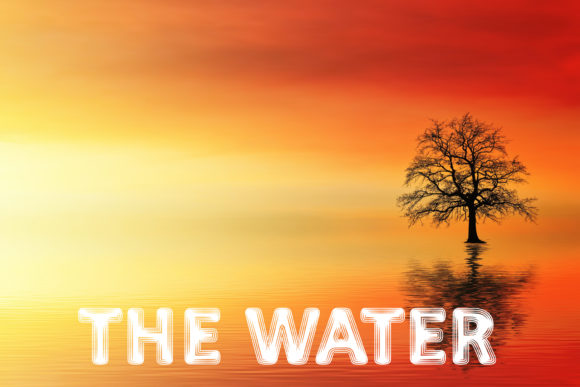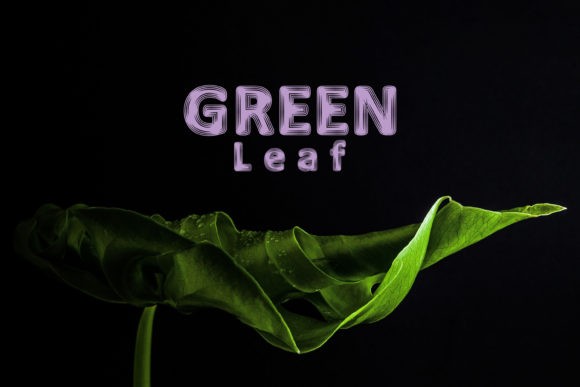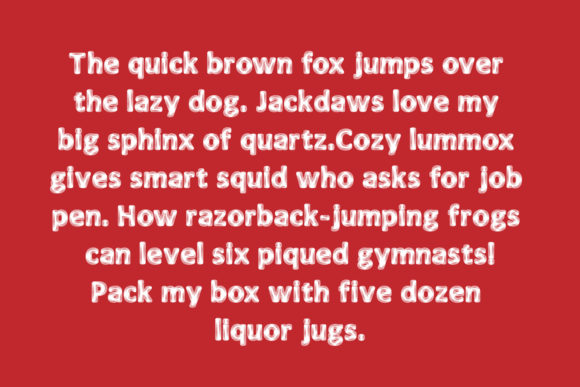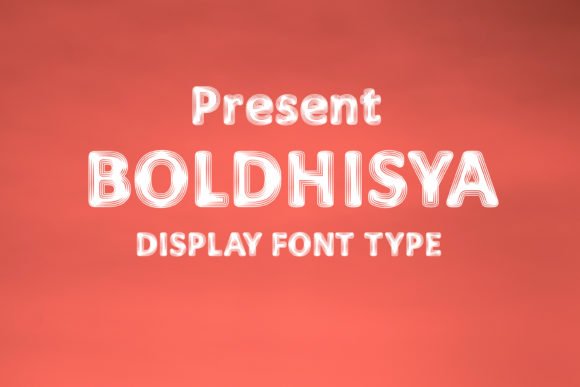
Introduction to Boldhisa Font
Boldhisya is an awesome and sharp looking display font, that will truly inspire your works.
Key Features of Boldhisa Font